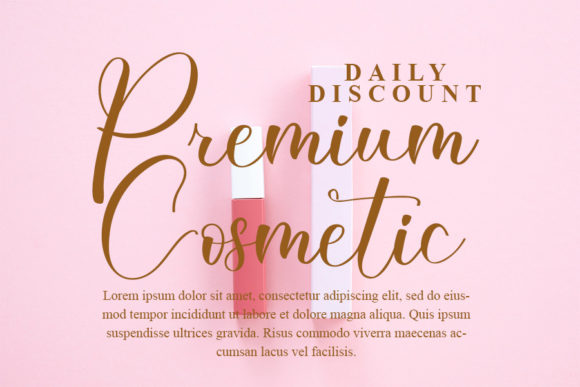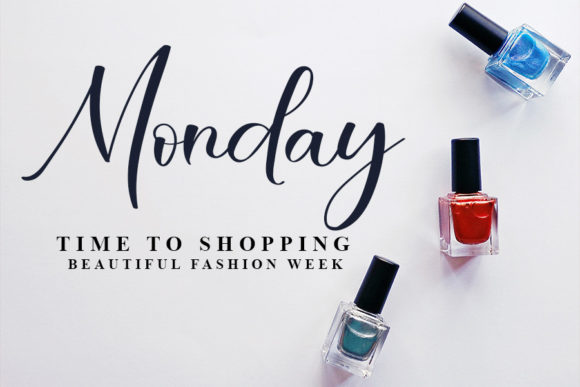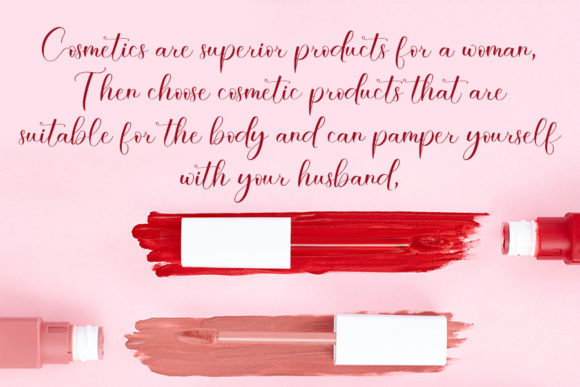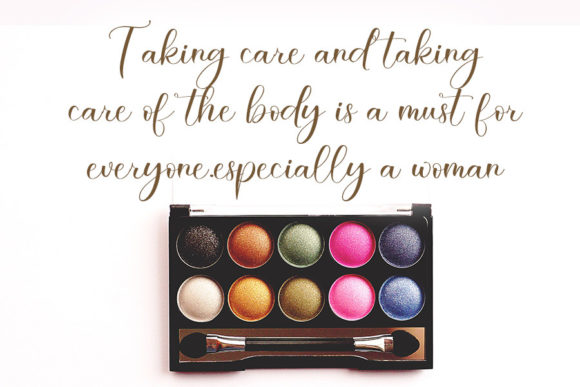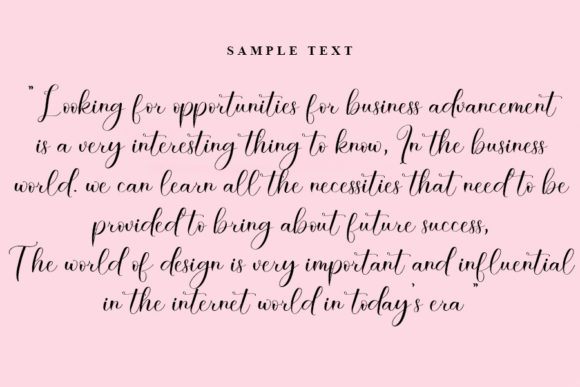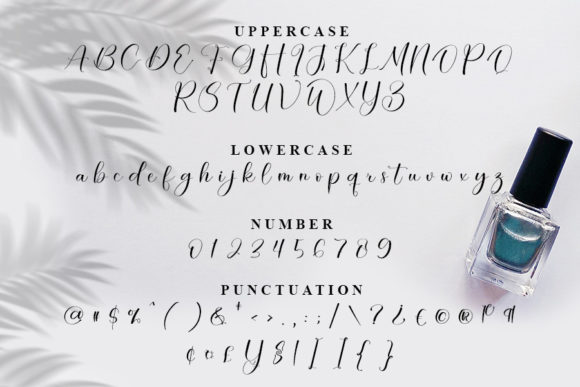
Introducing Gelami Font: Elevate Your Designs with Timeless Elegance
In the world of typography, a font can make or break a design. For designers and crafters seeking to add a touch of sophistication and style to their projects, Gelami Font is an exceptional choice. This beautifully crafted handwritten font boasts a contemporary atmosphere, impeccable form, and a classic calligraphic essence that instantly elevates any design.
The Inspiration Behind Gelami Font
Gelami Font draws inspiration from timeless classic calligraphy, bringing a sense of tradition and elegance to the table. However, its execution is distinctly modern, making it versatile enough to fit into a wide range of design contexts. Whether you’re working on a branding project, a wedding invitation, or a packaging design, Gelami Font offers the perfect blend of classic charm and contemporary flair.
Key Features of Gelami Font
- Stylish and Handwritten: Gelami Font features a stylish handwritten aesthetic that adds a personal touch to any project. Its fluid strokes and elegant letterforms make it stand out in a crowd.
- Contemporary Atmosphere: Despite its classic inspiration, Gelami Font maintains a contemporary vibe that ensures your designs feel fresh and current.
- Balanced and Varied: The font is meticulously designed to offer a balanced and varied look. This variability makes it perfect for creating visually engaging text that holds the reader’s attention.
- PUA Encoded: Gelami Font is PUA (Private Use Area) encoded, which means you can easily access all the glyphs and ligatures. This feature is particularly useful for designers who want to explore the full creative potential of the font without any technical hassles.
Enhance Your Projects with Gelami Font
Gelami Font is more than just a typeface; it’s a design element that can transform your projects. Here are a few ways you can use Gelami Font to enhance your designs:
- Branding and Logotypes: The unique and stylish nature of Gelami Font makes it an excellent choice for branding and logotypes. It can help create a memorable and sophisticated brand identity.
- Wedding and Event Stationery: Add a touch of elegance to your wedding invitations, save-the-date cards, and other event stationery with Gelami Font.
- Packaging Design: Stand out on the shelves with packaging designs that feature Gelami Font. Its contemporary yet classic look is sure to attract attention.
- Digital and Print Media: Whether you’re working on a website, a magazine, or a flyer, Gelami Font can add a level of sophistication and style that’s hard to achieve with standard fonts.
Tips for Using Gelami Font Effectively
To get the most out of Gelami Font, consider the following tips:
- Pair it Wisely: Gelami Font pairs well with clean sans-serif fonts for a modern contrast or with other script fonts for a more traditional look. Experiment with different pairings to find the perfect match for your project.
- Play with Ligatures: Take advantage of the PUA encoding to explore the ligatures and glyphs available in Gelami Font. These can add an extra layer of uniqueness to your text.
- Adjust Letter Spacing: For a more customized look, adjust the letter spacing. This can help improve readability or create a more stylized effect, depending on your needs.
Gelami Font is a versatile and stylish addition to any designer’s toolkit. Its blend of classic calligraphic inspiration and modern design makes it suitable for a wide range of projects. With its PUA encoding, beautiful glyphs, and ligatures, Gelami Font offers endless possibilities for creative expression. Whether you’re a professional designer or a crafting enthusiast, Gelami Font is sure to elevate your designs and help you achieve that perfect balance of elegance and contemporary style.